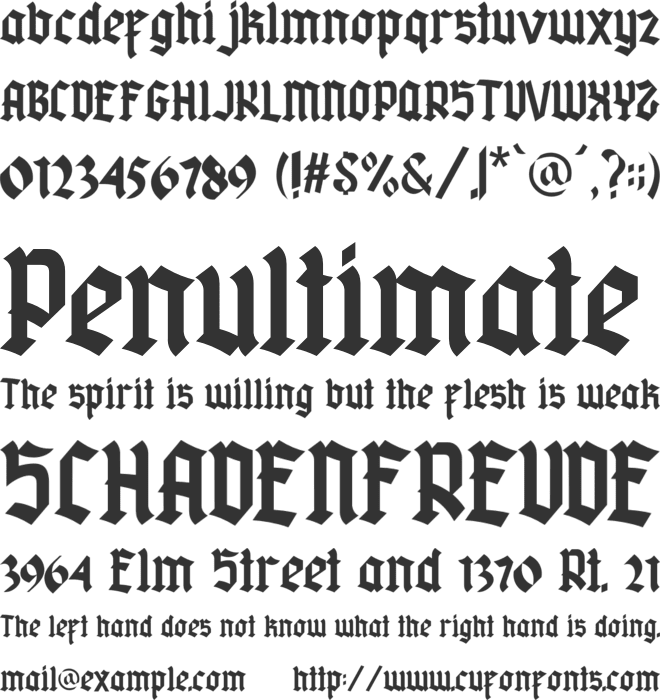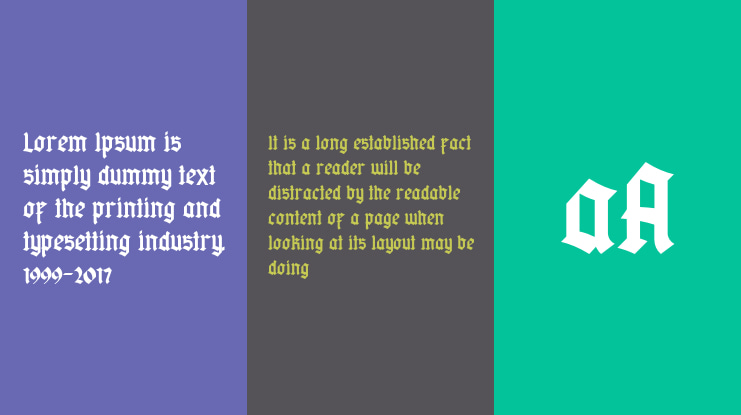
Forgore Font
Forgore is Blackletter typeface embodies a dark, medieval, and sacred atmosphere, inspired by classic Gothic manuscripts and old religious typography. Featuring sharp angles, bold strokes, and dramatic contrast, this font conveys a sense of power, devotion, mystery, and authority.